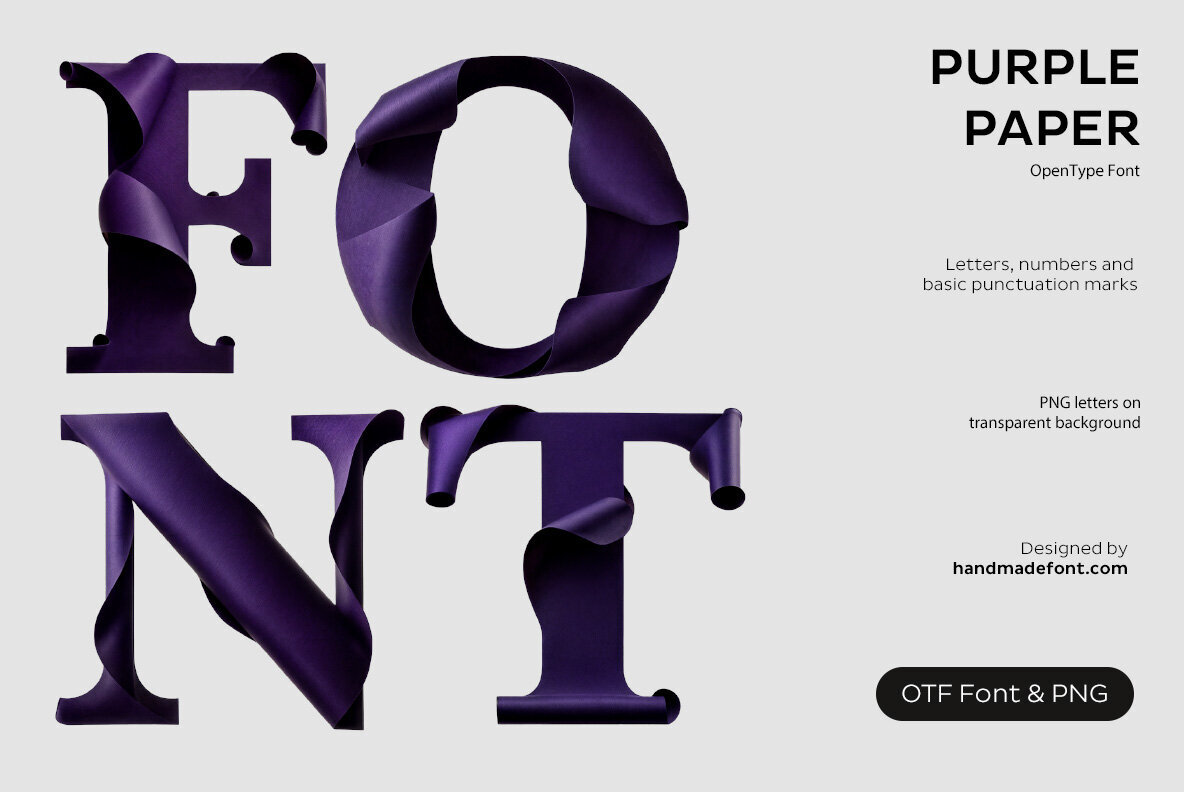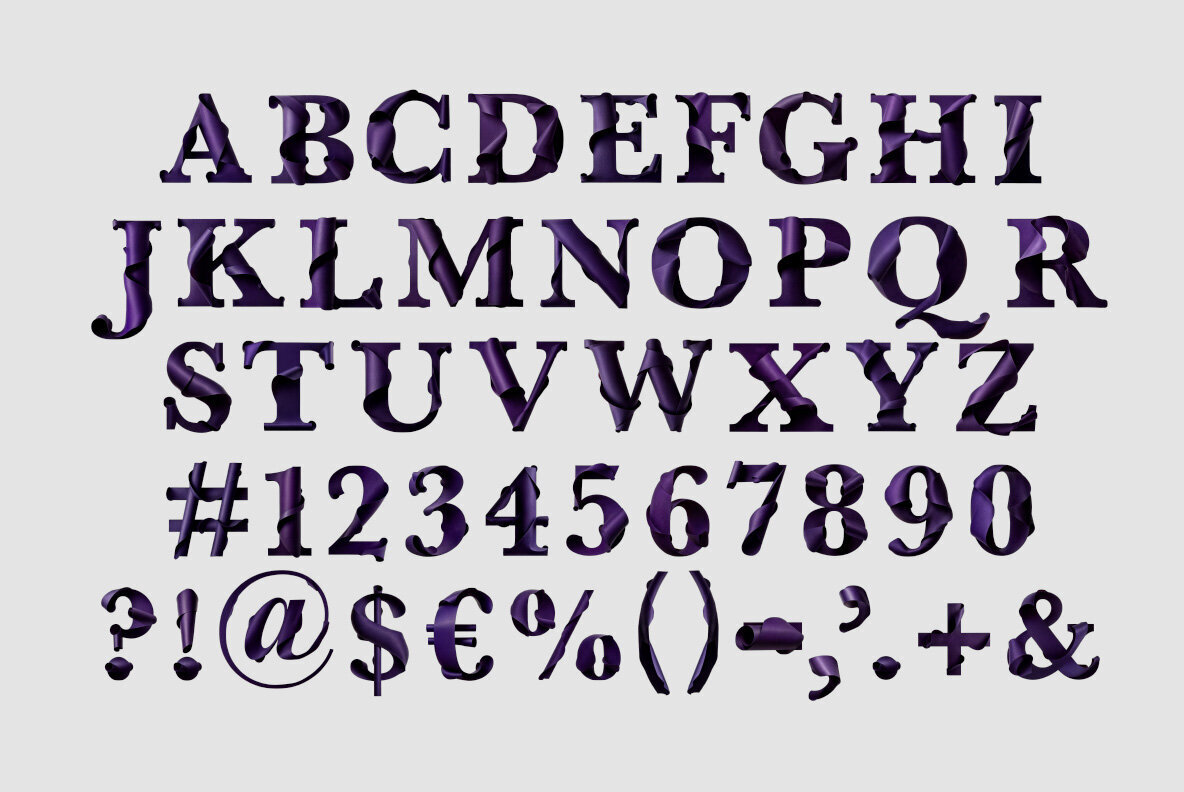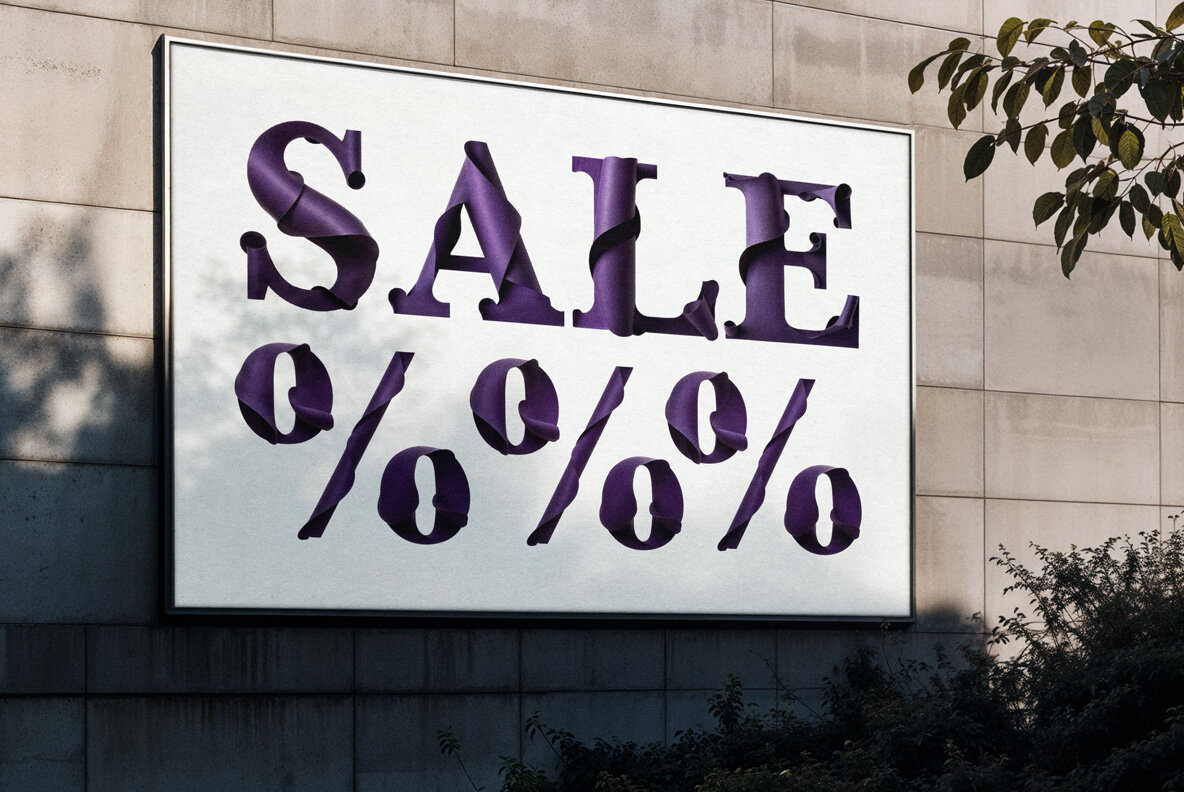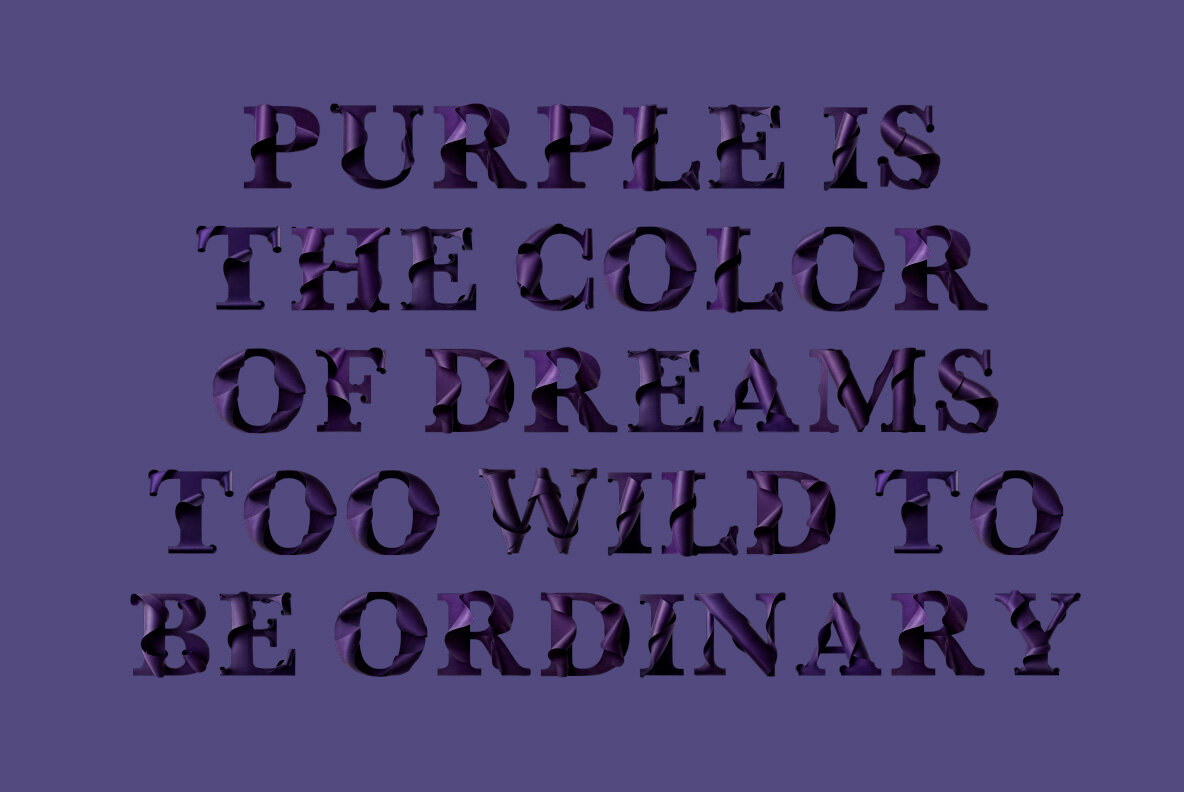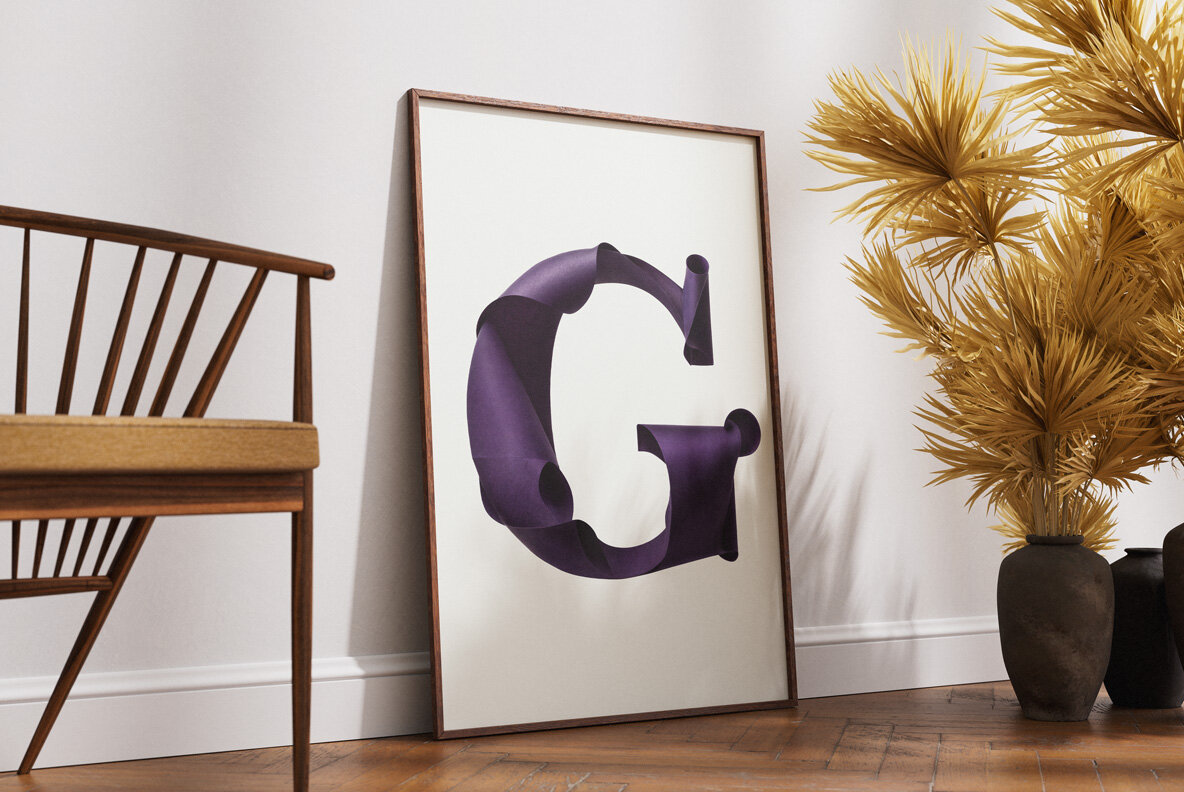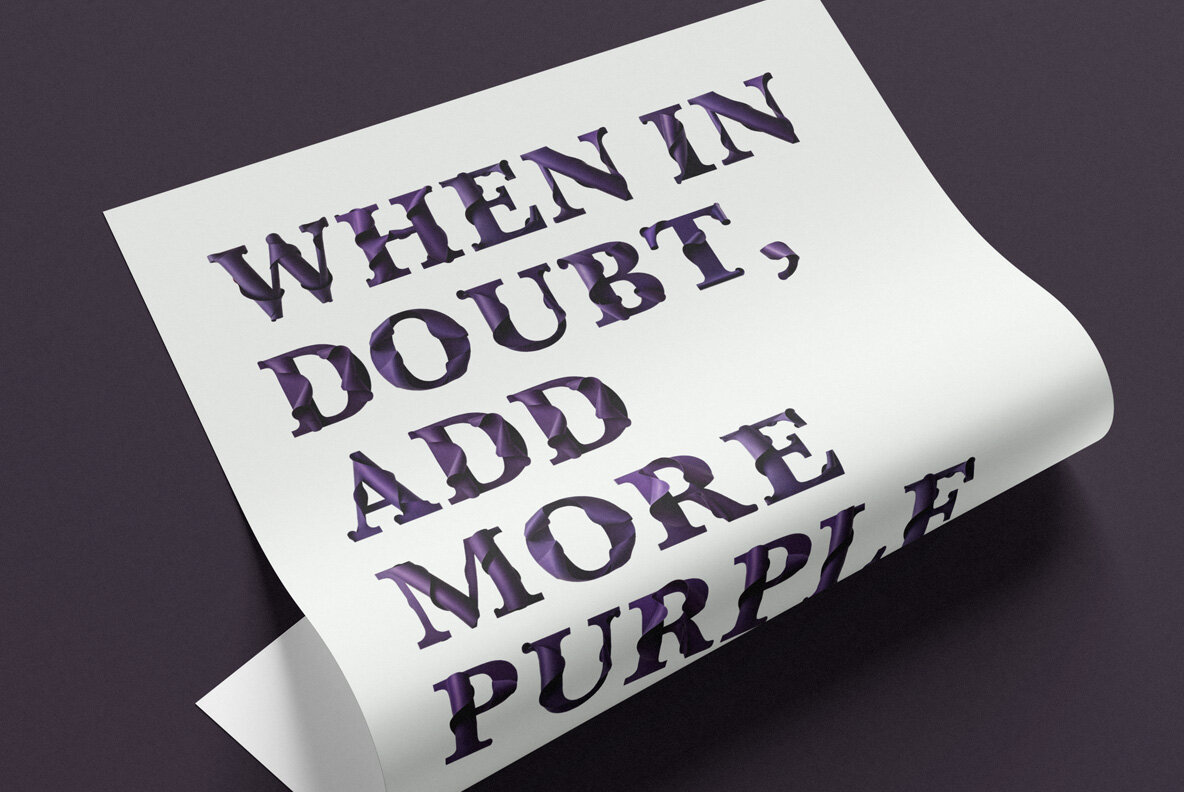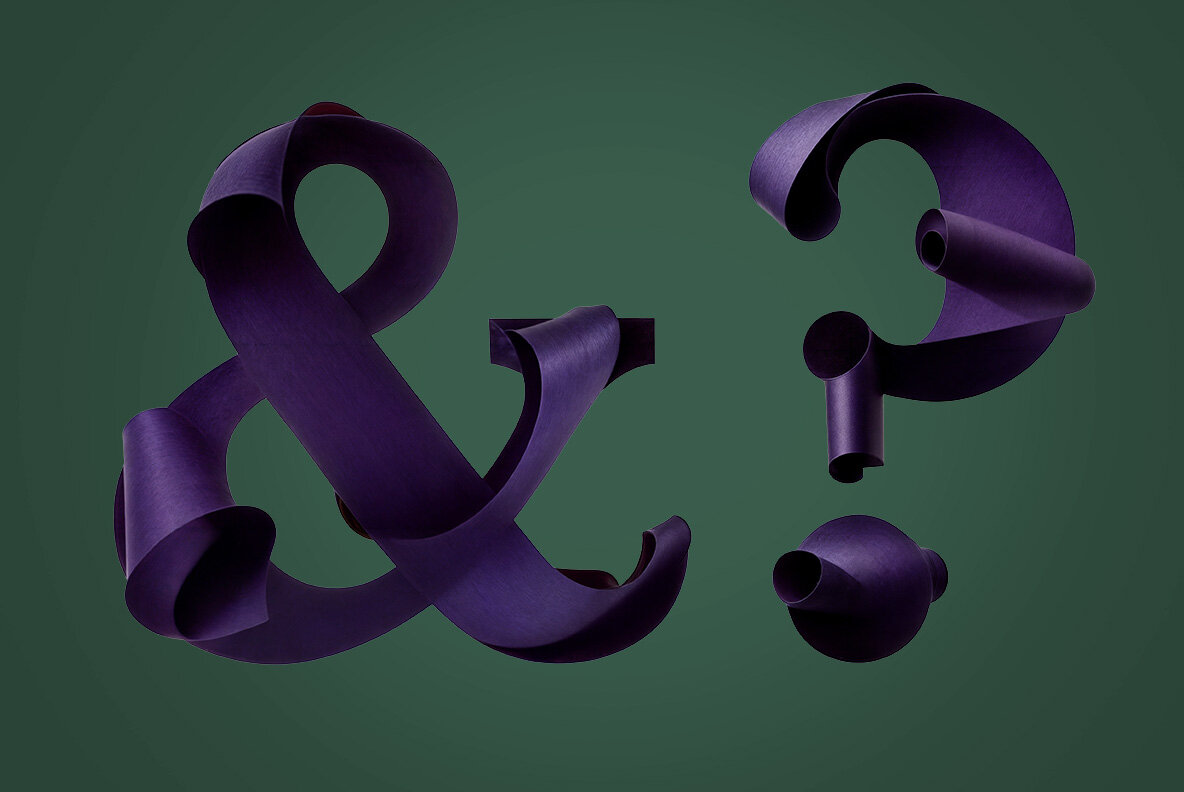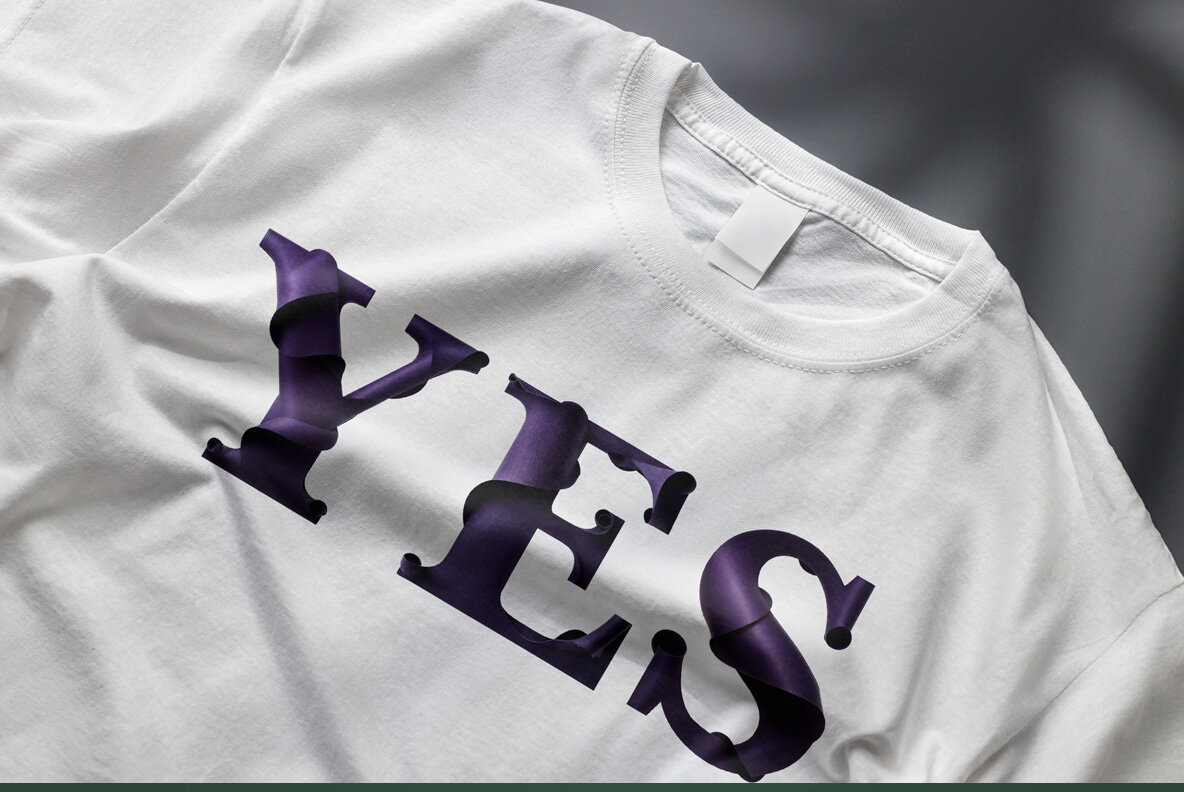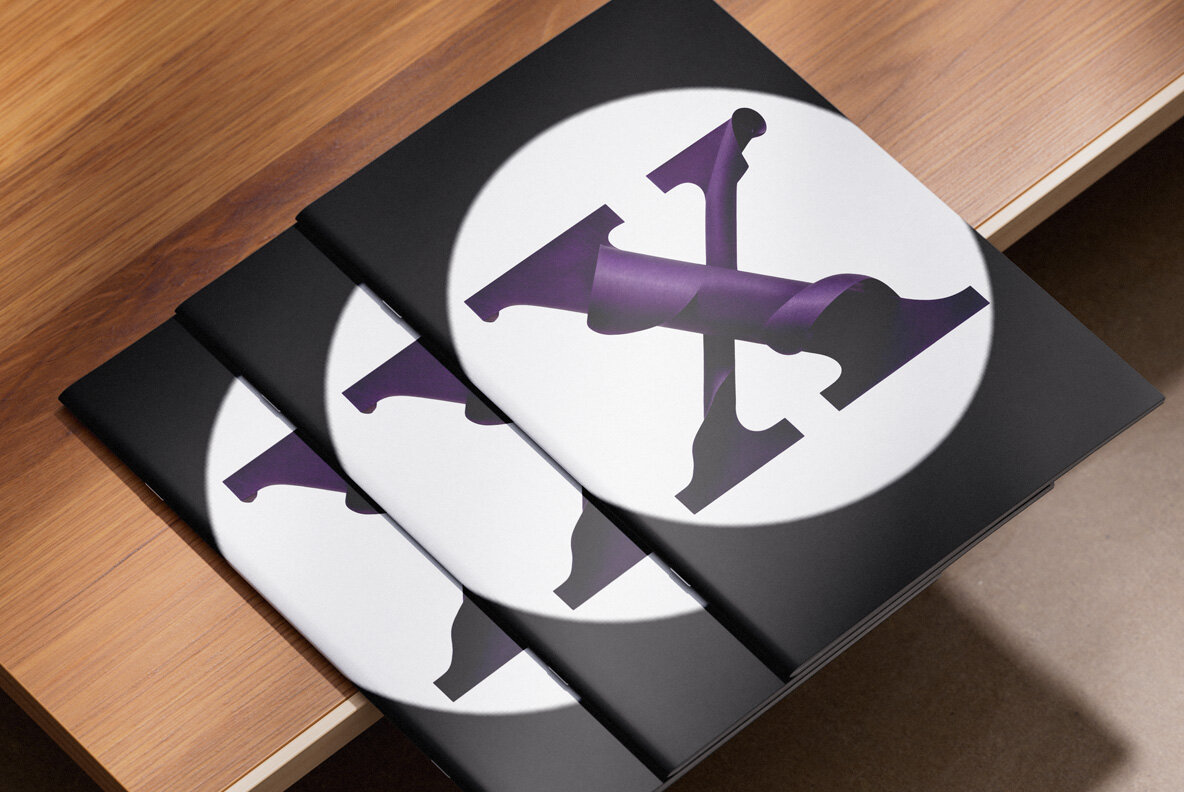
Purple Paper Font introduces a stylish fusion of elegance and paper-folding artistry. With each letter meticulously crafted from deep purple paper, the font combines a serif-style structure with gentle folds, offering depth and a luxurious feel. Imagine sophisticated calligraphy intertwined with high-fashion origami—perfect for creating designs intended to exude sophistication and creativity. This decorative, purple paper-inspired typography infuses a unique twist into your projects, making each word appear whimsically refined.